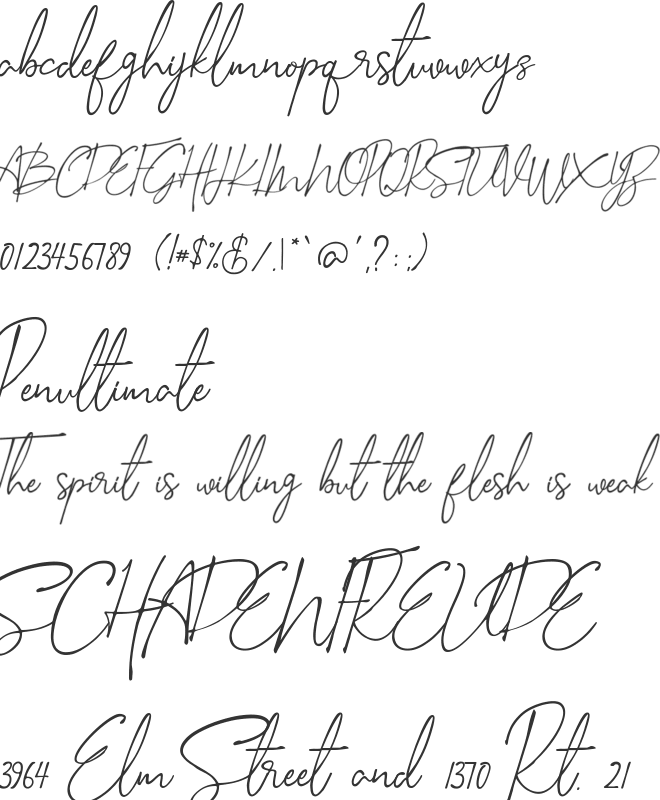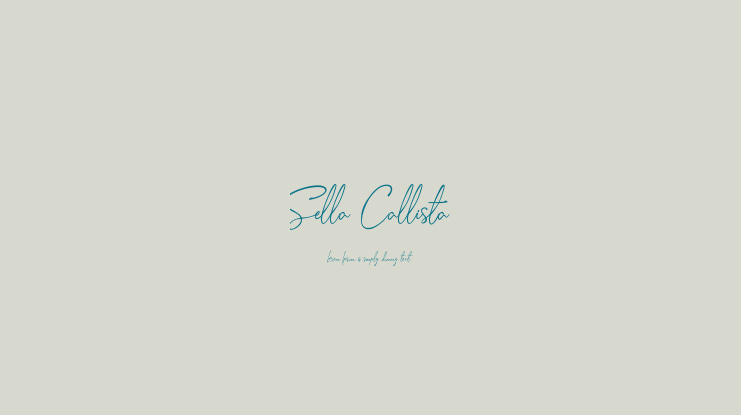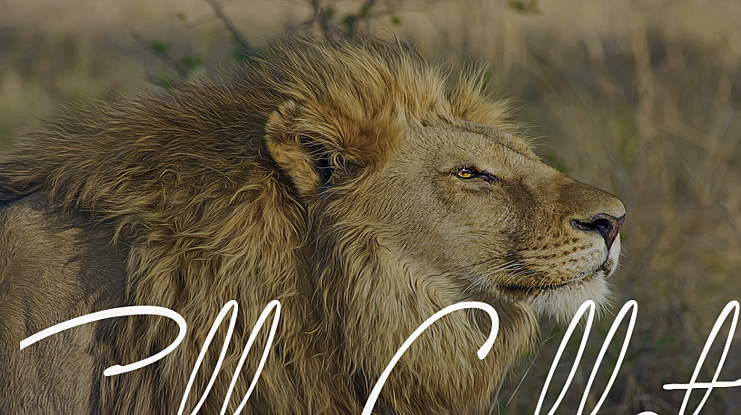
Sella Callista Font
Introducing the new Sella Callista script font - A fashionable and super-chilled new handwriting font script with some sexy stylish extras:) Sella Callista font was created to look as close to a natural handwritten script as possible and a full set of lowercase alternates. With built in Opentype features, this script comes to life as if you are writing it yourself. It's highly recommended to use it in opentype capable software - there are plenty out there nowadays as technology catches up with design...Other than Photoshop, Illustrator and Indesign, many standard simple programs now come with Opentype capabilities - even the most basic ones such as Apples TextEdit, Pages, Keynote, iBooks Author, etc. Even Word has found ways to incorporate it. This Font Is perfect for logo, invitation, stationery, wedding designs, social media posts, advertisements, product packaging, product designs, label, photography, watermark, special events or anything.